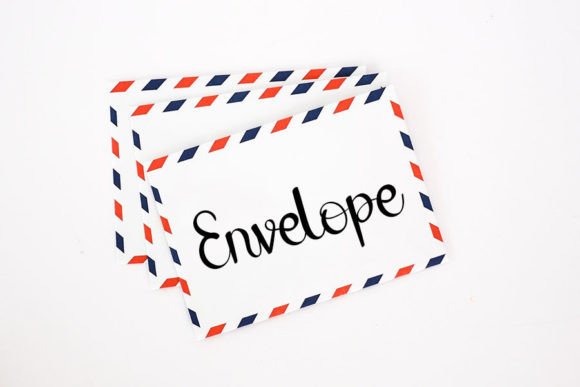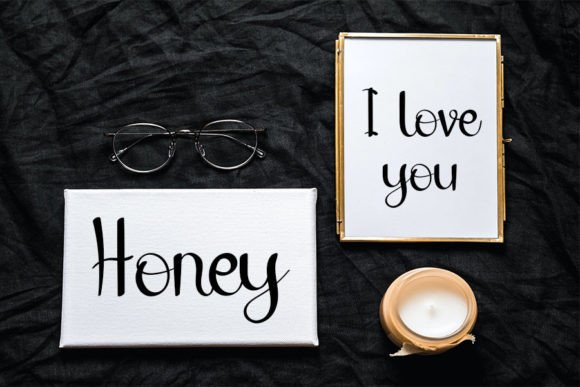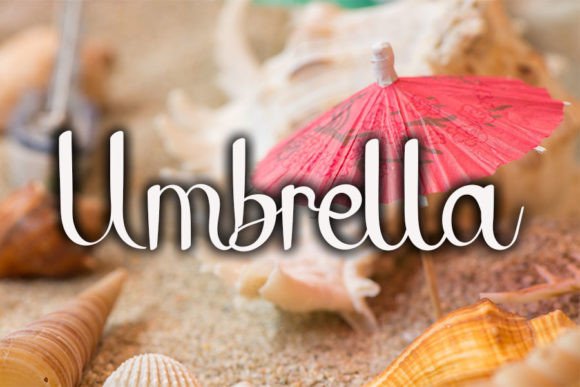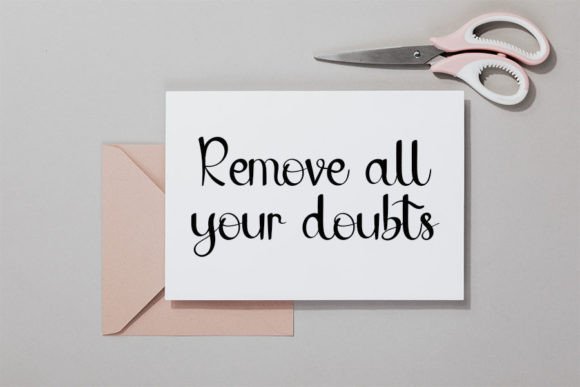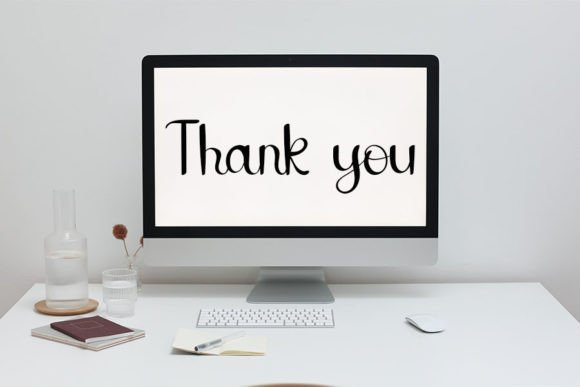
Mailbox Font
About Mailbox Font
**Mailbox: A Colorful Handwritten Font for Creative Projects**
Mailbox is a charming handwritten font that brings a splash of color and elegance to your creative projects. With its clean and slightly quirky style, this font is a versatile choice that can enhance a wide range of design applications, from logos and branding to social media graphics and crafty DIY projects.
One of the standout features of Mailbox is its colorful and playful appearance. The font’s vibrant and lively letterforms instantly grab attention and add a sense of fun to your designs. Whether you’re working on a logo, a branding project, or a social media post, Mailbox’s colorful characters will make your content pop.
Logos and branding benefit from Mailbox’s unique charm. It can be used to create distinctive logos and wordmarks that stand out from the crowd. The font’s handwritten style adds a personal touch to your brand identity, making it more relatable to your audience.
Social media graphics come to life with Mailbox. Whether you’re designing posts, quotes, or promotional materials, this font adds a touch of whimsy and creativity. It’s an excellent choice for social media influencers, bloggers, and anyone looking to make their content more engaging.
Crafty DIY projects get a boost from Mailbox’s handmade aesthetic. Whether you’re working on greeting cards, posters, invitations, or any other DIY endeavor, this font adds a charming and artistic flair to your creations. It’s the perfect choice for adding handwritten elements to your craft projects.
Mailbox’s clean lines and touch of elegance ensure that your designs maintain a professional look while still exuding a playful and creative vibe. The font strikes a balance between casual and stylish, making it suitable for a wide range of design styles and themes.
In conclusion, Mailbox is a colorful handwritten font that injects energy, creativity, and elegance into your design projects. Its versatility and unique style make it a valuable asset for logos, branding, social media, and crafty DIY endeavors. Choose Mailbox to infuse your designs with a sense of fun and sophistication.